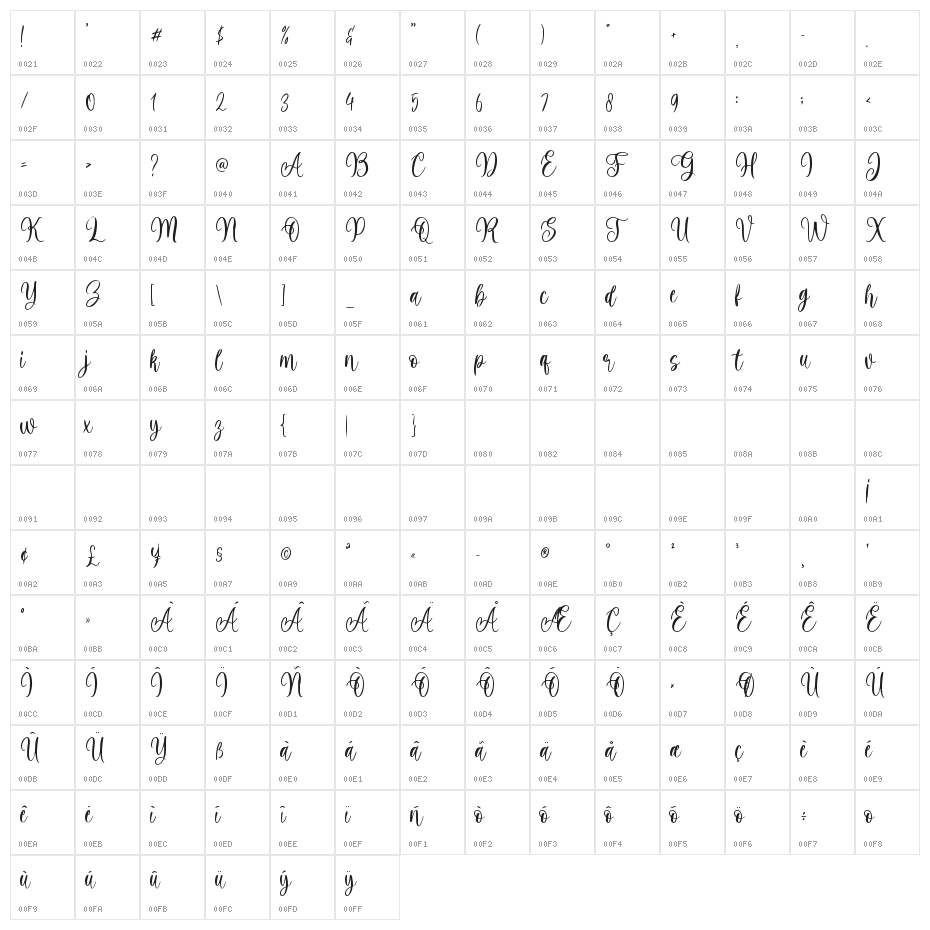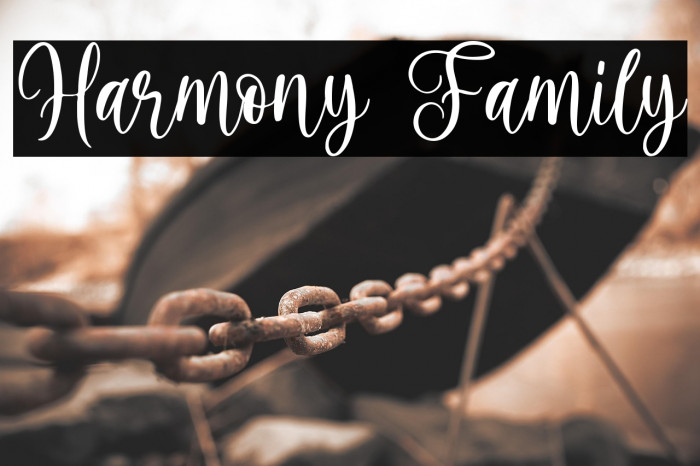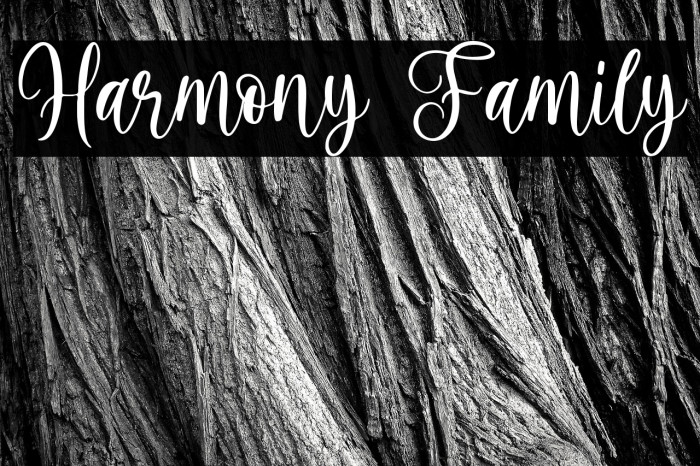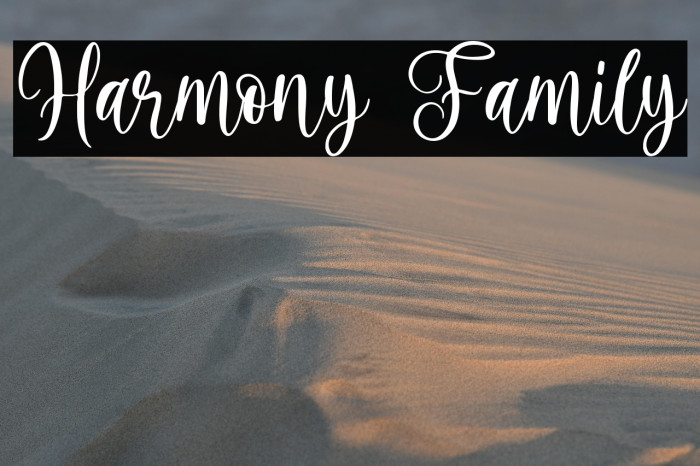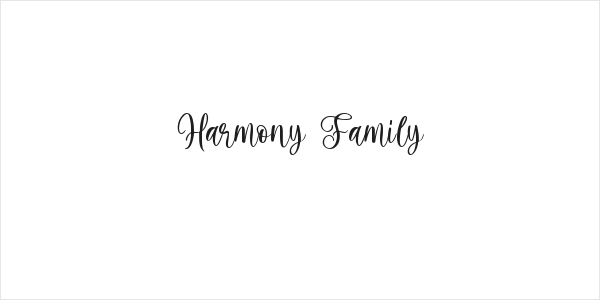
Harmony Family Font
Harmony Family Description
This elegant script font features a flowing, cursive style with smooth, rounded edges and intricate loops, creating a sense of fluidity and grace. The uppercase letters are ornate, with decorative swirls that enhance their visual appeal, while the lowercase letters maintain a consistent, harmonious flow. The numerals and special characters are crafted with the same attention to detail, ensuring a cohesive look across all elements. This font exudes a sense of sophistication and charm, making it ideal for projects that require a touch of elegance.
| Proposed Projects | Ideal for wedding invitations, elegant branding, greeting cards, and upscale packaging. |